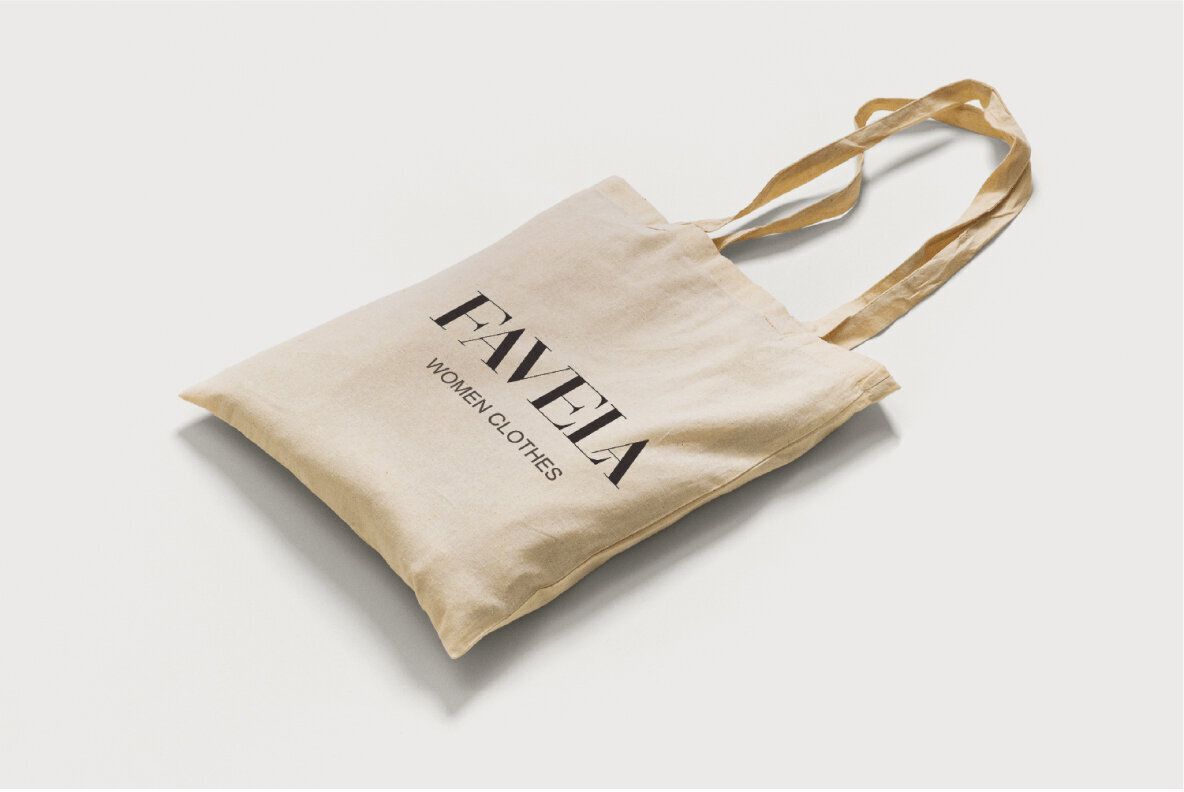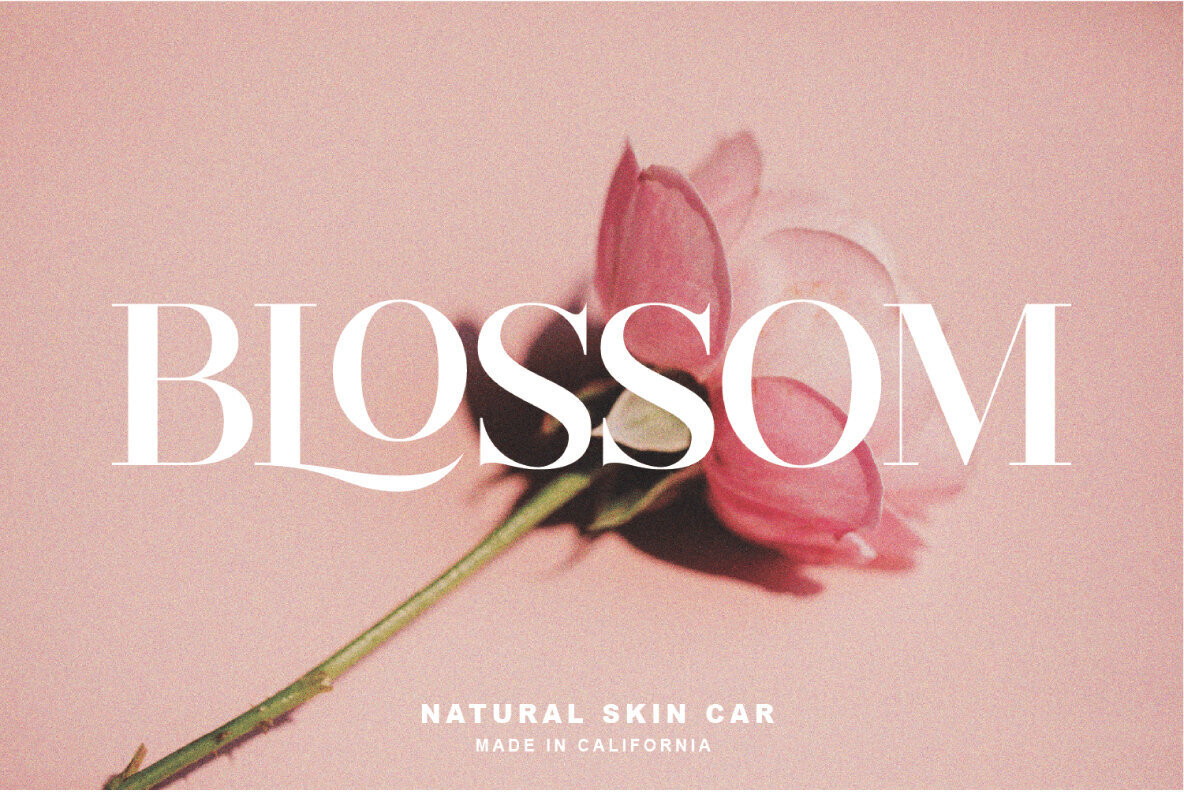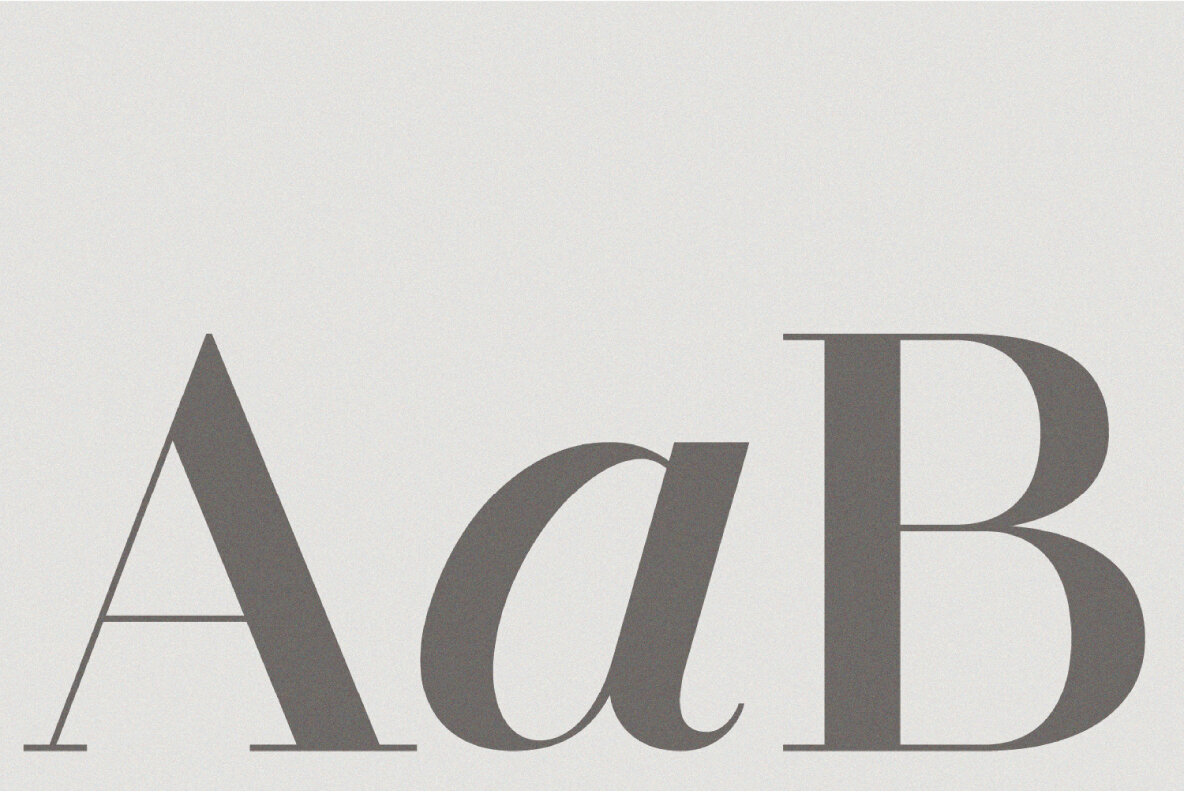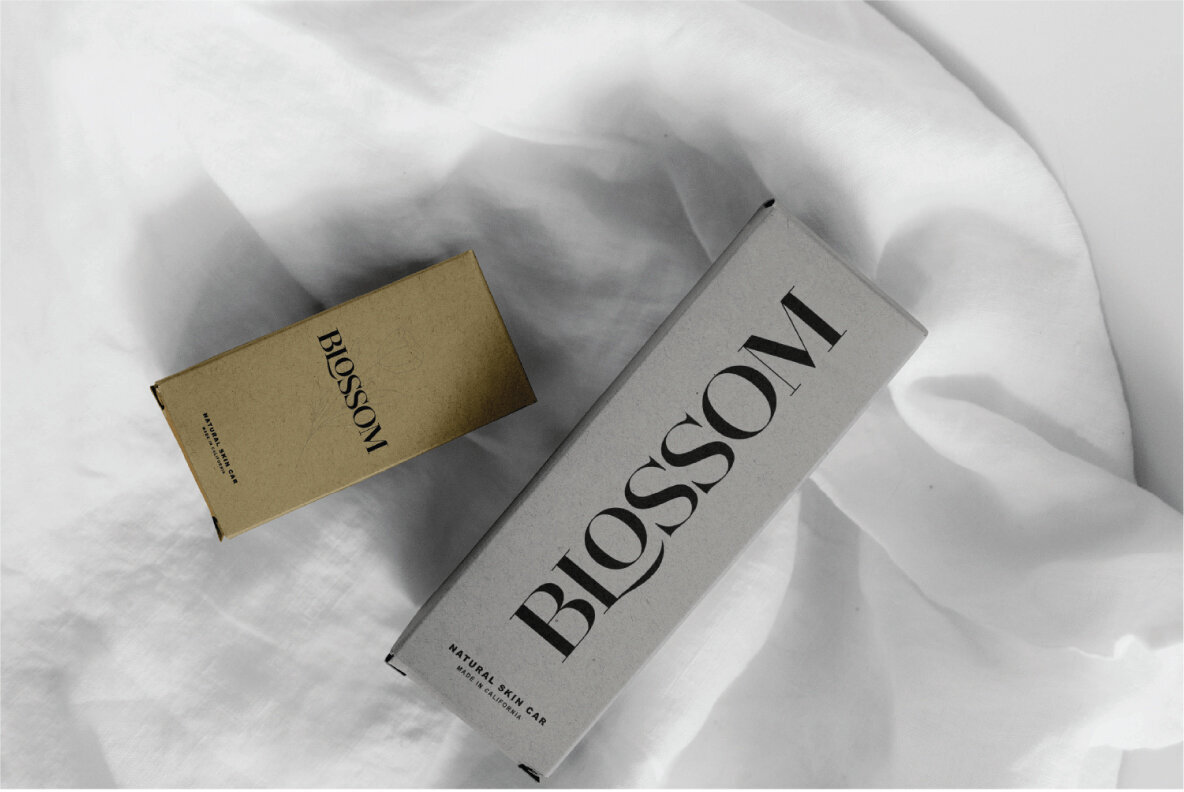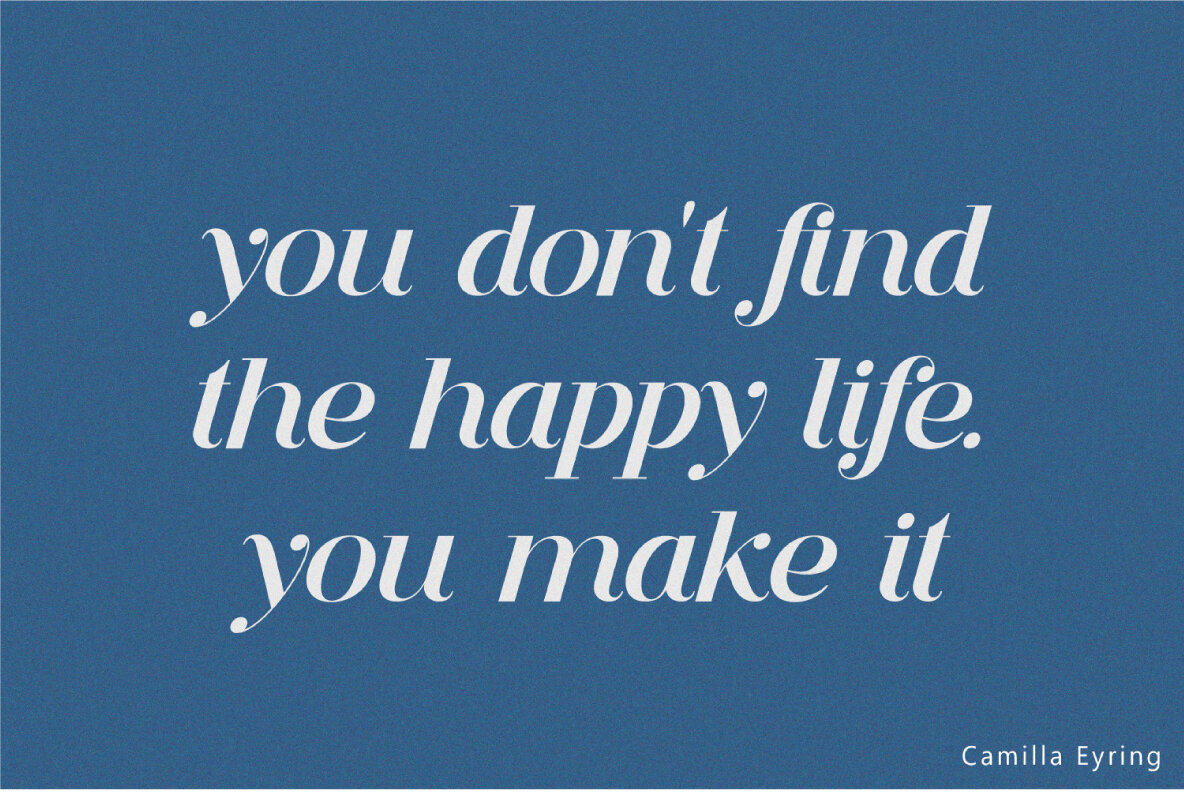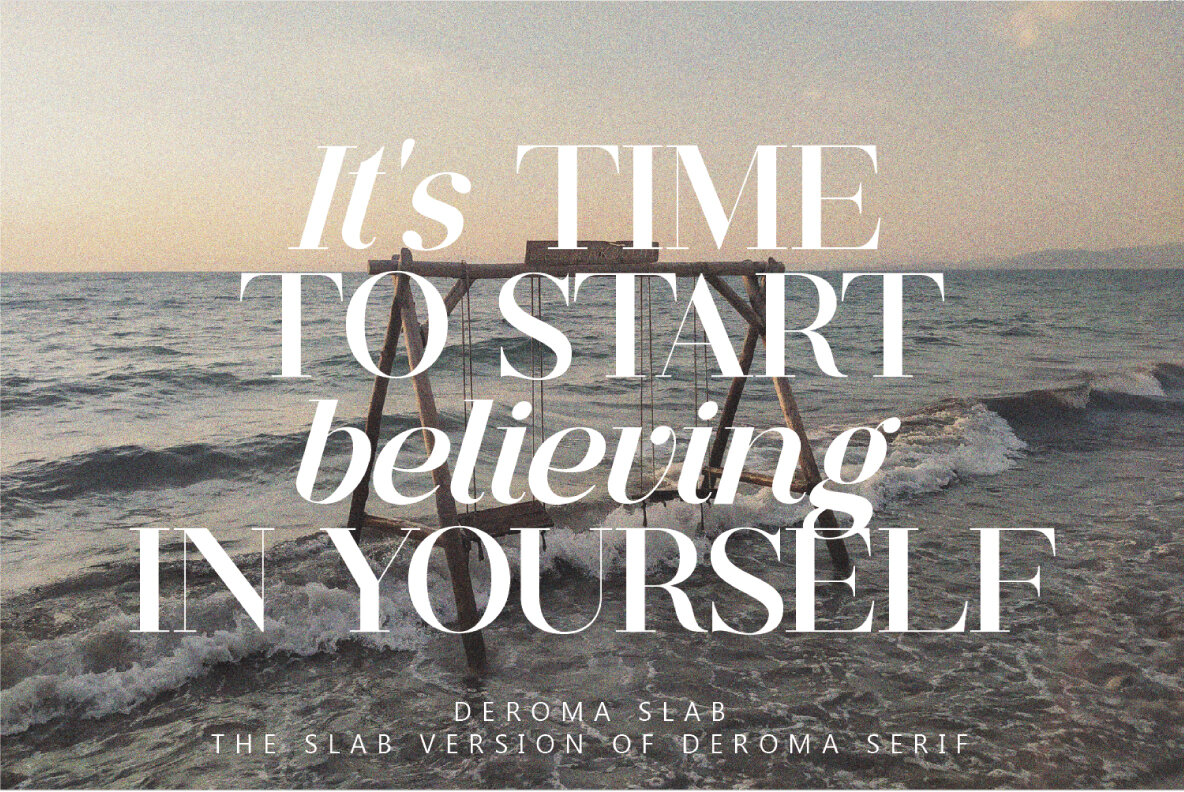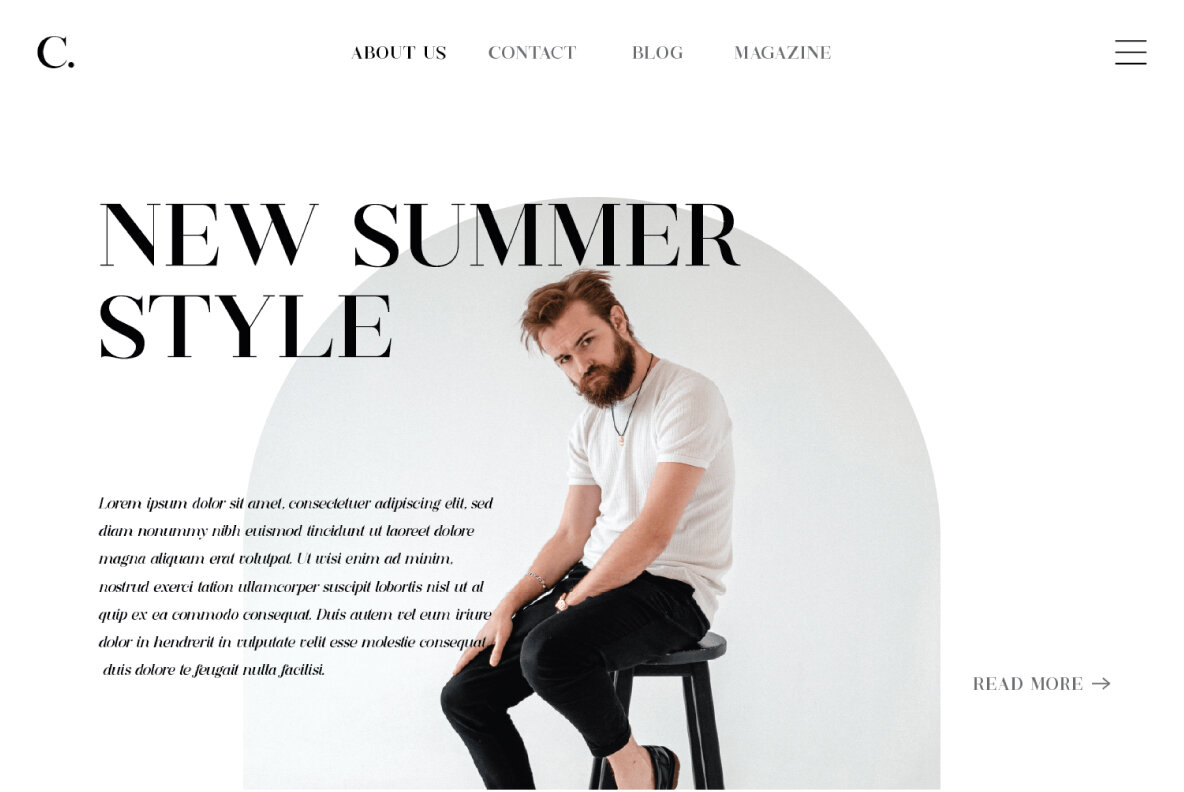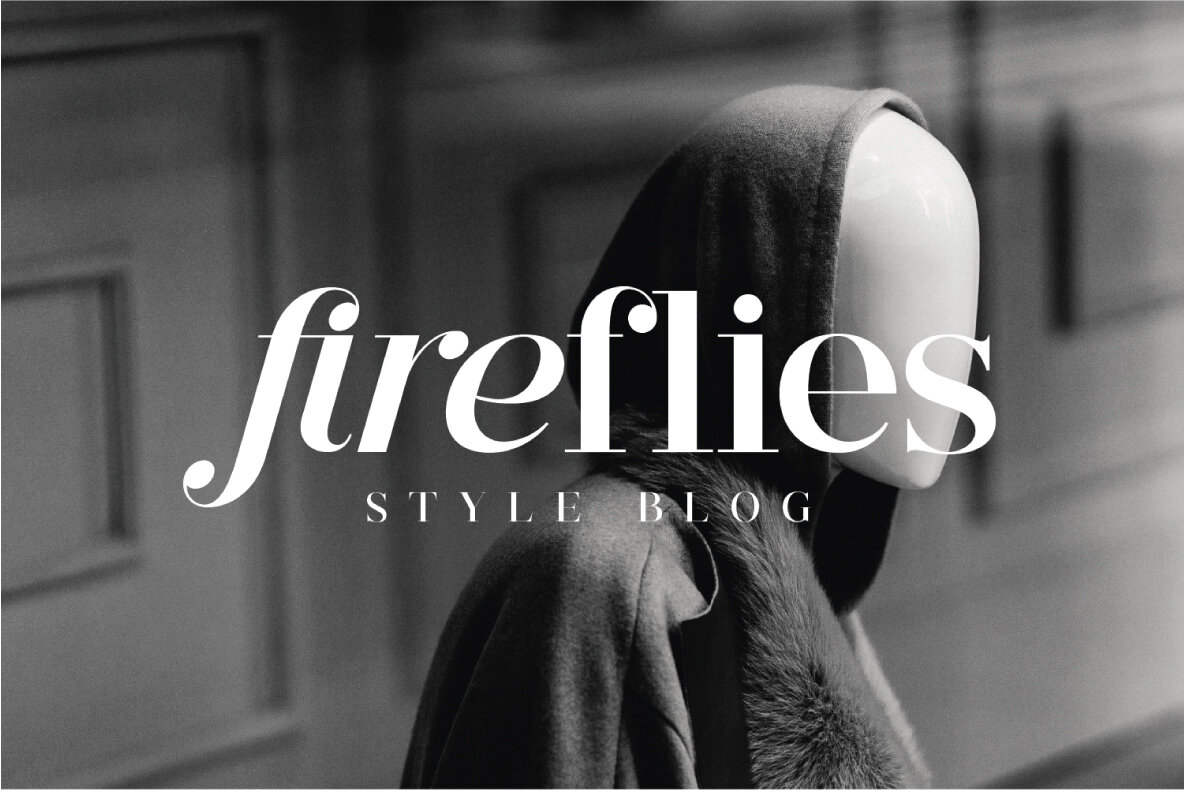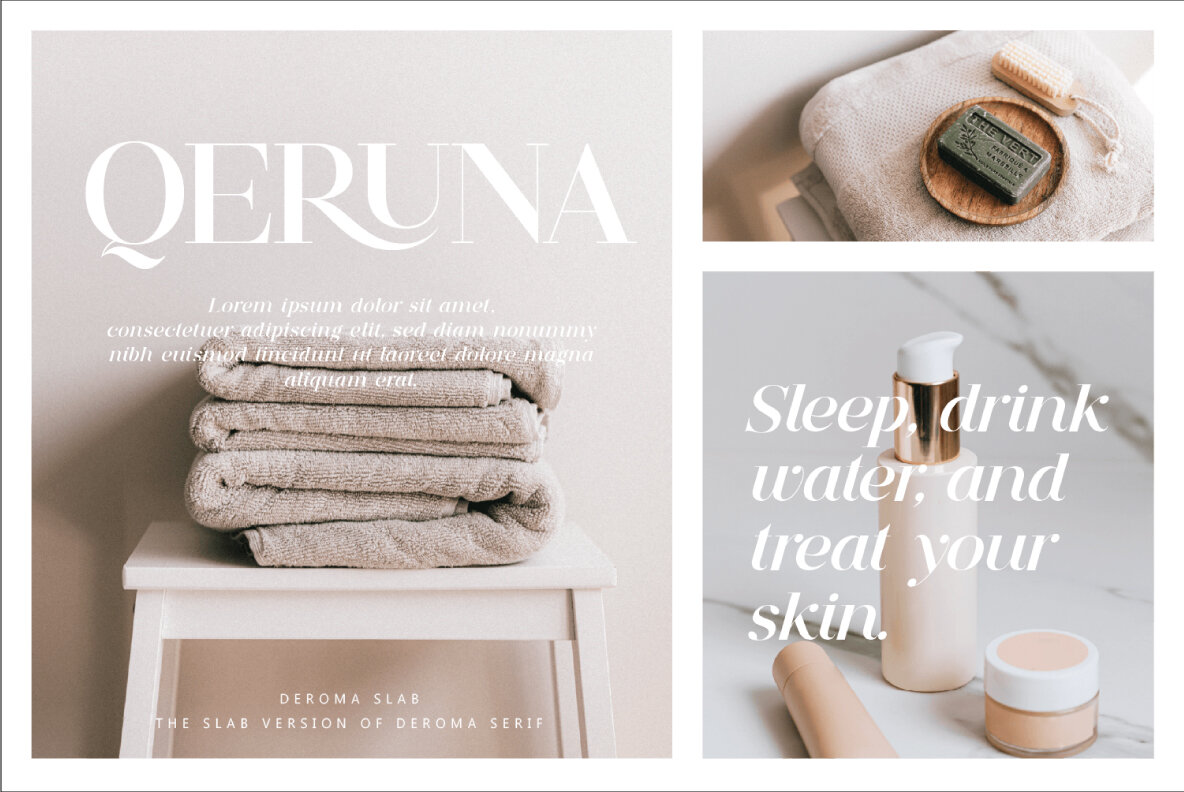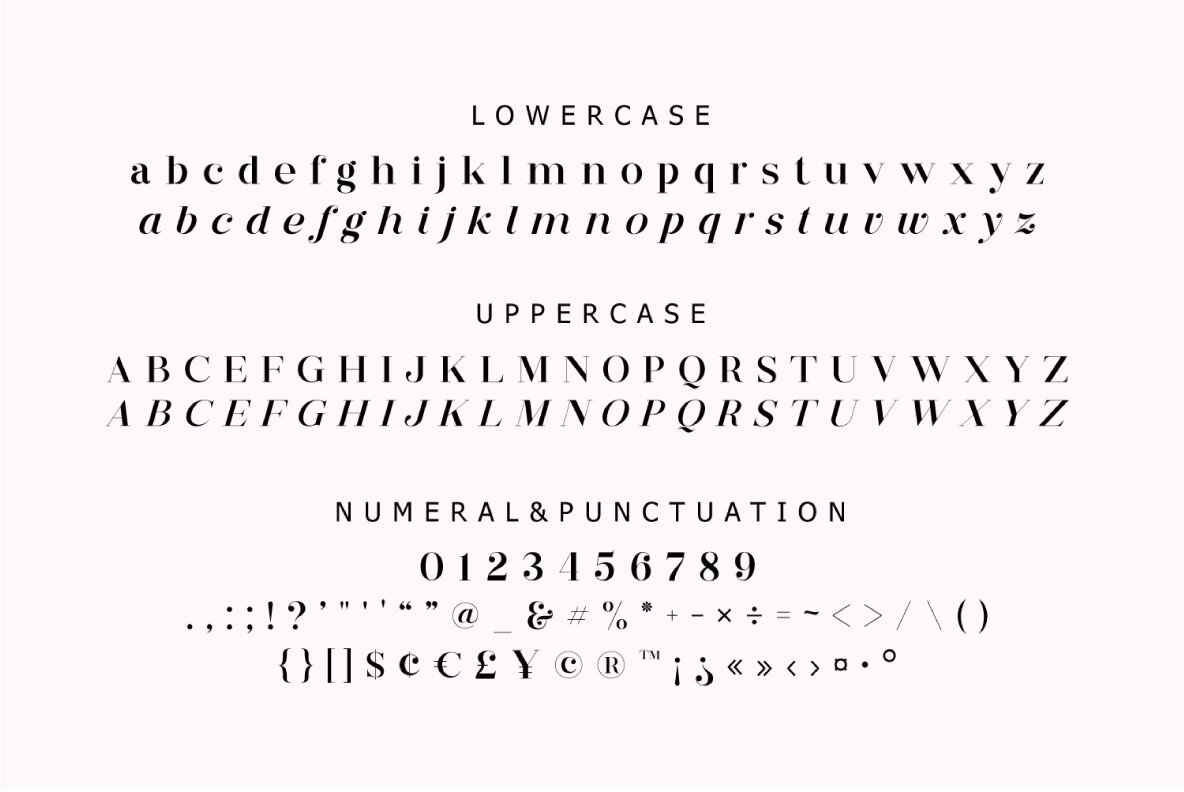
Deroma Slab Font
Deroma Slab Regular
Deroma Slab Italic
The Deroma Slab font stands as a versatile editorial slab serif, merging a classic vintage aesthetic with a subtle modern flair. With both regular and italic styles, this font offers designers the flexibility needed for diverse applications, whether in branding, promotions, or creative design. Perfect for an array of projects, Deroma Slab enhances logos, wedding designs, social media posts, advertisements, and more. Its adaptability and stylistic appeal also make it suitable for product packaging, labels, photography watermarks, invitations, and any creative endeavor that demands an elegant touch.Deroma Slab: A Vintage Meets Modern Editorial Typeface